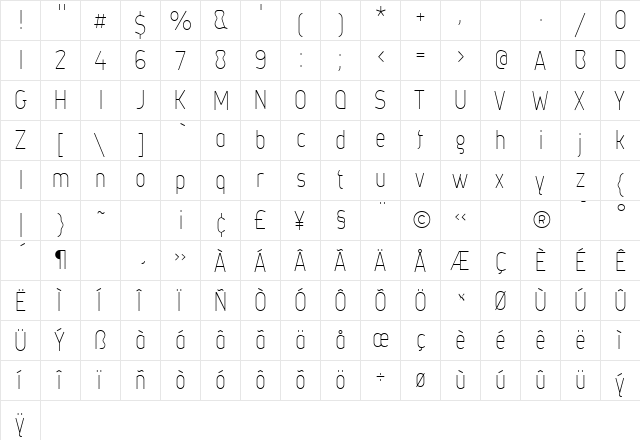
MetsysThin Regular Font Preview
MetsysThin Regular
Design Context for MetsysThin Typeface
MetsysThin takes a measured approach to typography — its balanced proportions and neutral character make it a reliable workhorse for both digital and print work. Its slender proportions lend an understated elegance to any composition.